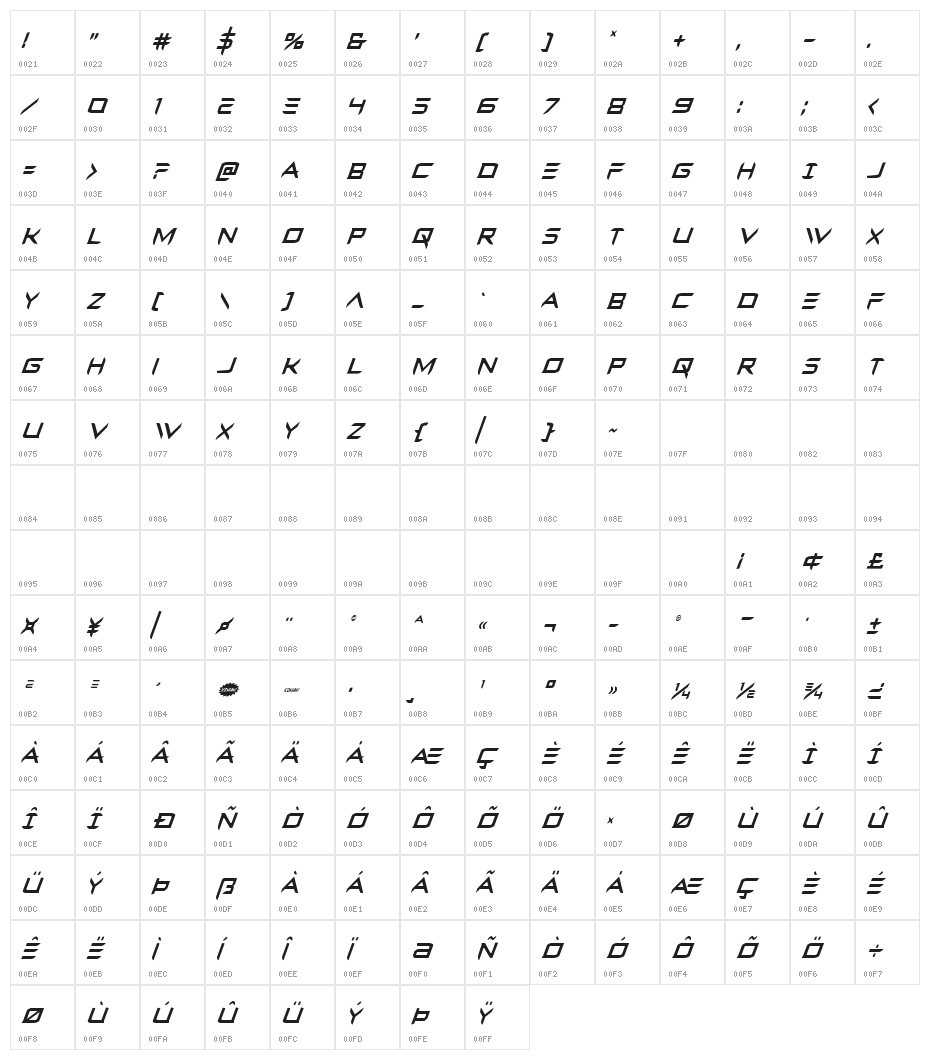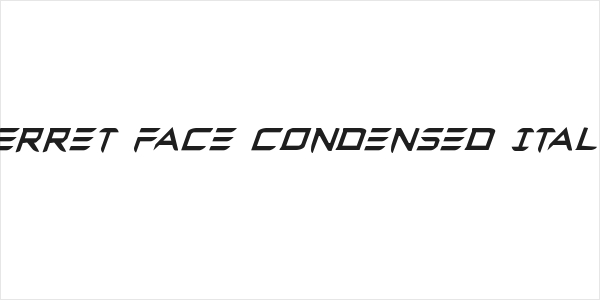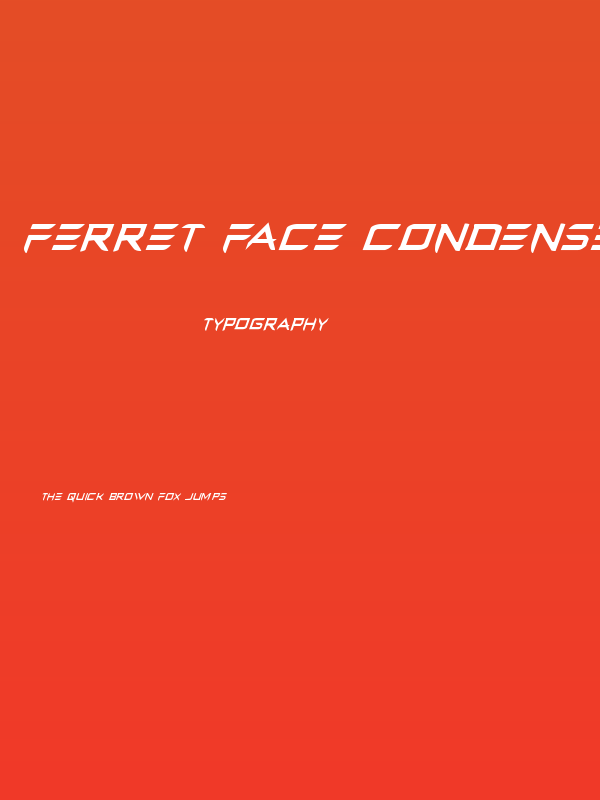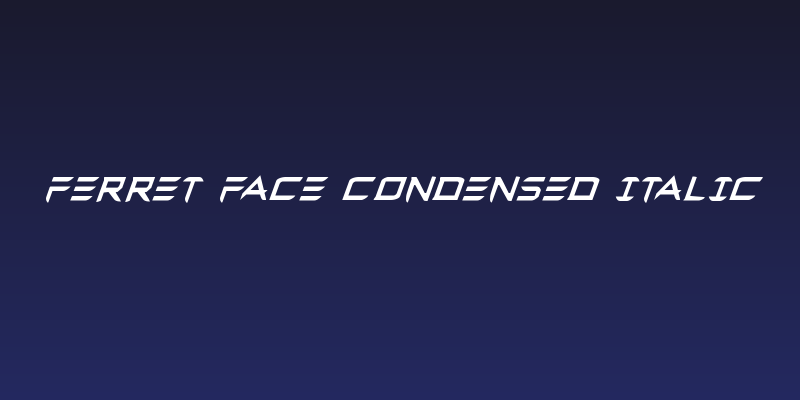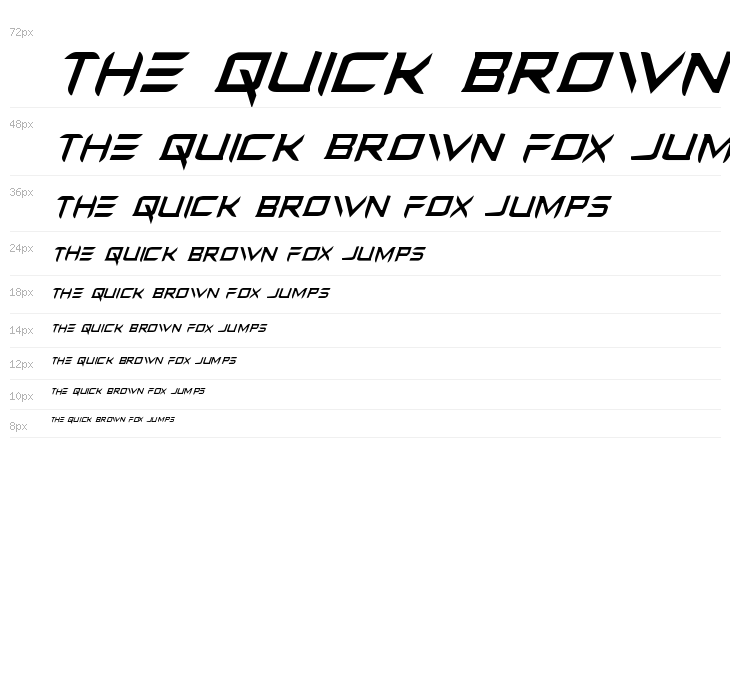
Ferret Face Condensed Italic Font
Ferret Face Condensed Italic Description
This font features a dynamic and angular design, characterized by its condensed and italicized form. The sharp edges and slanted orientation give it a futuristic and energetic appearance. The uppercase letters are bold and impactful, while the lowercase letters maintain the same angular style, providing a cohesive look. Numbers and special characters follow the same design principles, ensuring consistency across all elements. The font's unique style makes it stand out, ideal for projects that require a modern and edgy aesthetic.
Proposed ProjectsIdeal for sci-fi themed designs, video game titles, tech branding, and modern advertising.